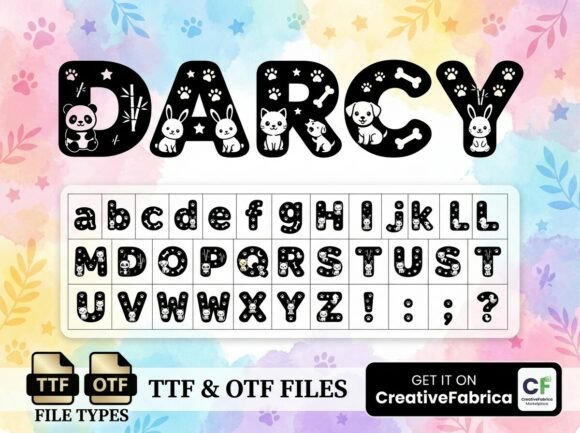
Introducing Darcy Font: The Ultimate Cute and Playful Addition to Your Creative Workspace
Are you tired of using the same old fonts in your designs? Look no further than Darcy Font, a premium novelty alphabet font that is sure to bring a smile to your face. This ultra-chunky, rounded display font is packed with absolute cuteness and playful texture, making it the perfect addition to your creative workspace.
A Font Like No Other
Darcy Font breaks completely away from traditional flat characters, turning every uppercase letter into an adorable home for cartoon animals. The thick, solid black character walls are hollowed out to showcase a variety of cute characters and icons, including baby pandas with bamboo shoots, fluffy bunnies, smiling kittens, happy puppies, scattered paw prints, dog bones, and twinkling stars. This unique design makes Darcy Font a standout in any design project.
Designed for Young Audiences
One of the key features of Darcy Font is its flawless legibility, making it perfect for young audiences. The font is engineered with smooth, thick perimeter contours and bounded by a clean white drop-shadow line, ensuring that it is easy to read and understand. This makes it an ideal choice for kids’ birthday party invitations, children’s book illustrations, kindergarten classroom decor, and nursery wall prints.
Darcy Font is highly versatile and can be used in a variety of creative projects. Some ideas include:
- Kids’ birthday party invitations: Create custom invitations that will make the birthday child and their guests excited for the big day.
- Custom Cricut and Silhouette vinyl sticker crafts: Use Darcy Font to add a personal touch to your vinyl sticker crafts, making them perfect for gifts or decorations.
- Children’s book illustrations: Bring your children’s book illustrations to life with Darcy Font, making them more engaging and fun for young readers.
- Kindergarten classroom decor: Use Darcy Font to create fun and educational decorations for kindergarten classrooms, making learning more enjoyable for young students.
- Nursery wall prints: Create adorable nursery wall prints that will add a touch of sweetness to any nursery.
- Playful sweet-shop product packaging labels: Use Darcy Font to create eye-catching product packaging labels that will make your sweet shop stand out.
What Makes Darcy Font Special
So, what makes Darcy Font so special? Here are just a few features that set it apart:
- Unique and playful design: Darcy Font is unlike any other font on the market, with its ultra-chunky, rounded design and adorable cartoon characters.
- Flawless legibility: The font is designed with smooth, thick perimeter contours and a clean white drop-shadow line, making it easy to read and understand.
- Highly versatile: Darcy Font can be used in a variety of creative projects, from kids’ birthday party invitations to children’s book illustrations.
Get Ready to Add Some Cuteness to Your Designs
If you’re looking for a font that will add a touch of cuteness and playfulness to your designs, look no further than Darcy Font. With its unique and playful design, flawless legibility, and endless creative possibilities, Darcy Font is the perfect addition to your creative workspace. So why wait? Download Darcy Font today and get ready to create designs that will bring a smile to everyone’s face!
| Author | clipartguru |
In conclusion, Darcy Font is a premium novelty alphabet font that is sure to bring a touch of cuteness and playfulness to your designs. With its unique and playful design, flawless legibility, and endless creative possibilities, Darcy Font is the perfect choice for designers and crafters looking to add some excitement to their creative projects. Whether you’re creating kids’ birthday party invitations, children’s book illustrations, or nursery wall prints, Darcy Font is the perfect font for the job.